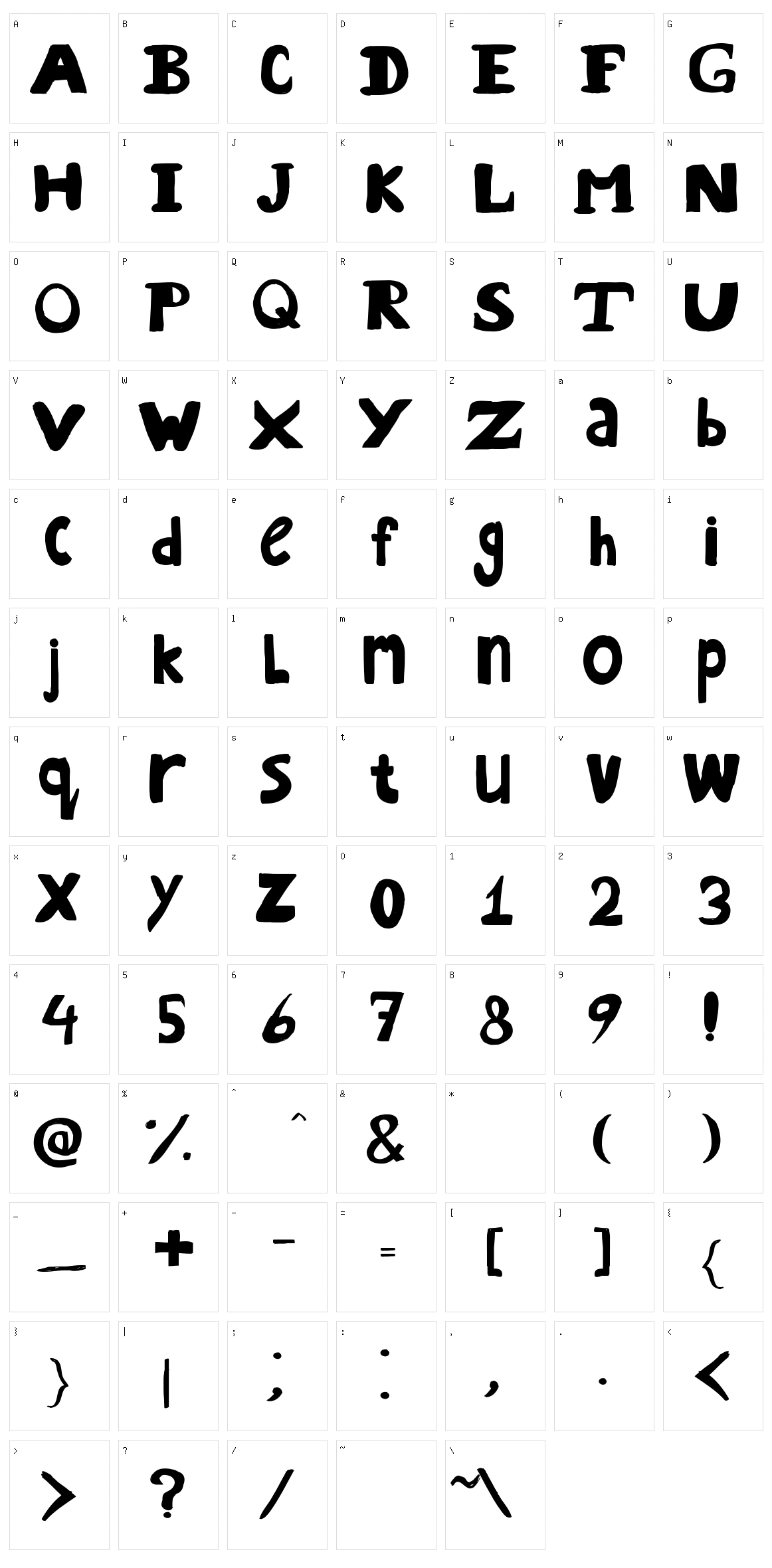
The free font Dream Daddy is carefully designed by Pim Hoogeveen, showcasing a thoughtful balance of creativity and usability and falls under the Cartoon font style. When you download the ZIP file, it contains only 31.26 KB of font files, making it lightweight and quick to download. Please review the license details below to understand permitted usage and distribution rights. If license information is not available, we recommend using this font for personal projects only or contacting the author directly for commercial usage permissions.